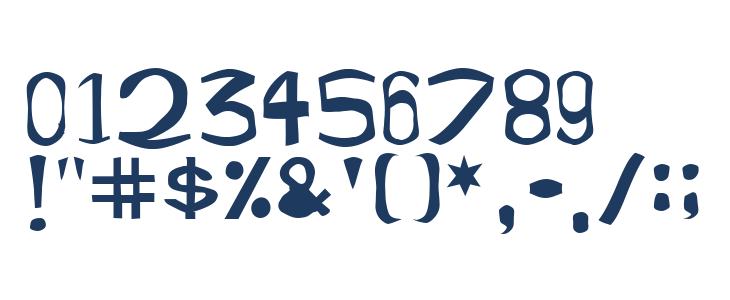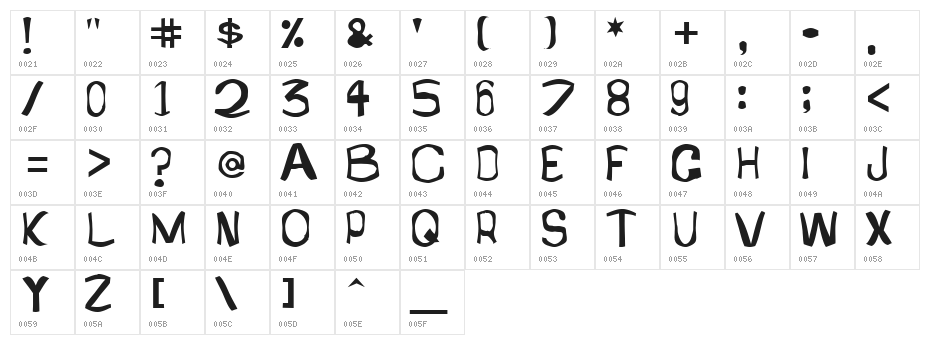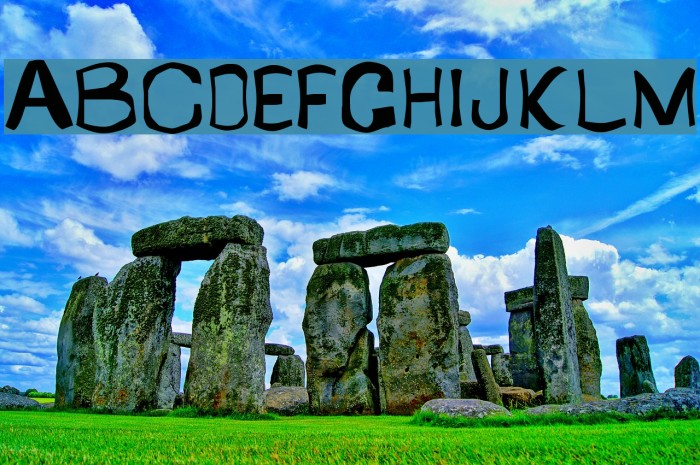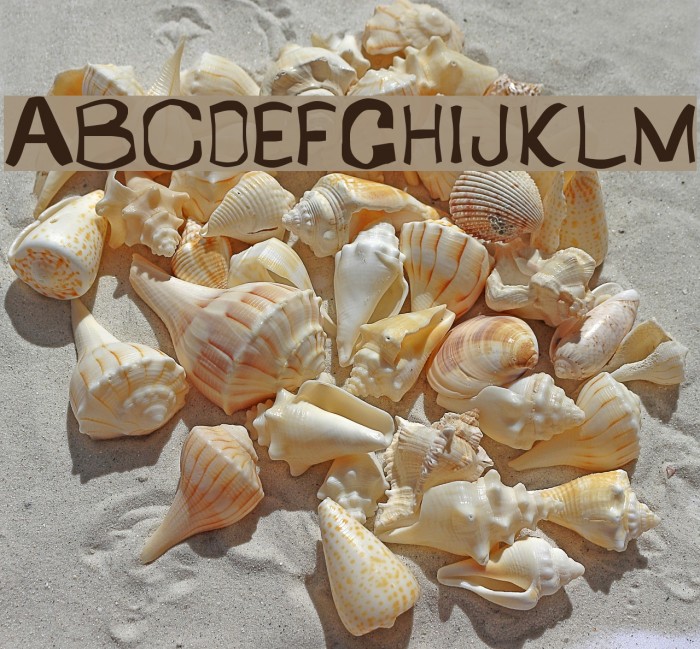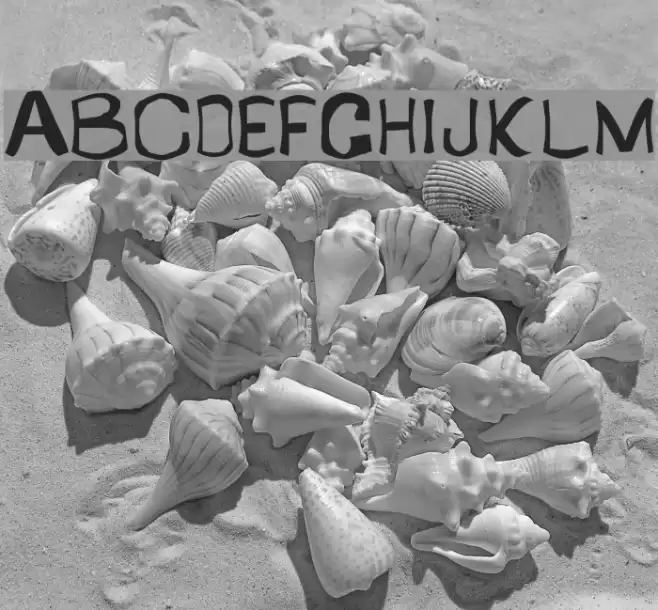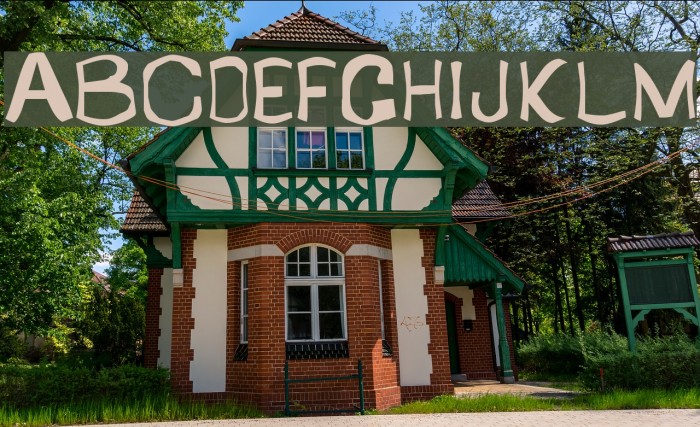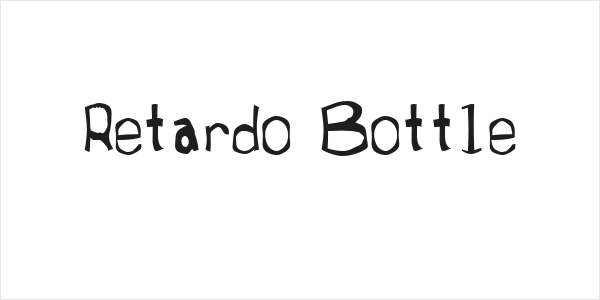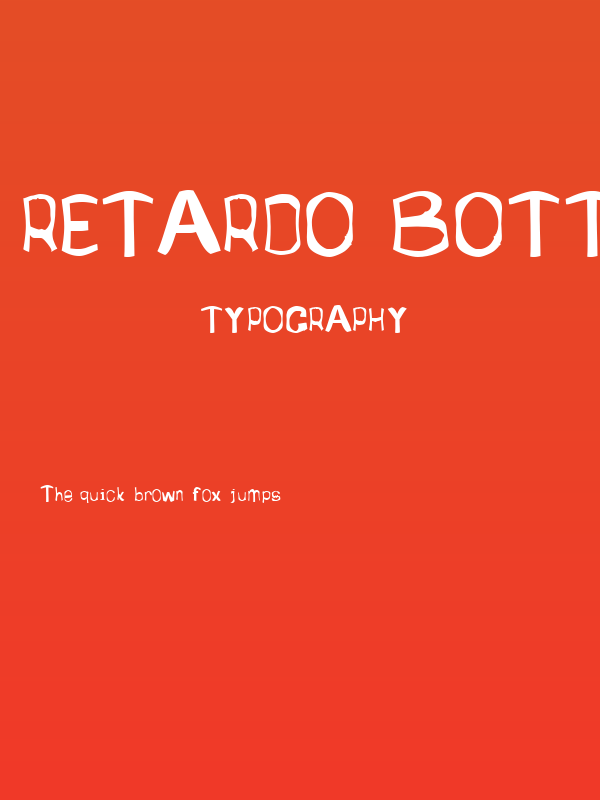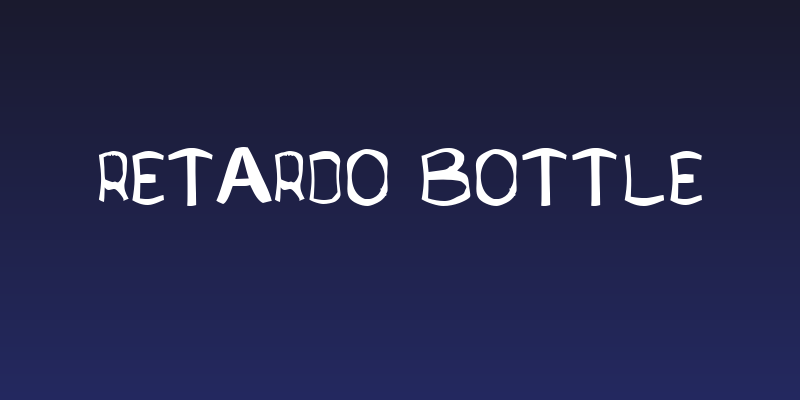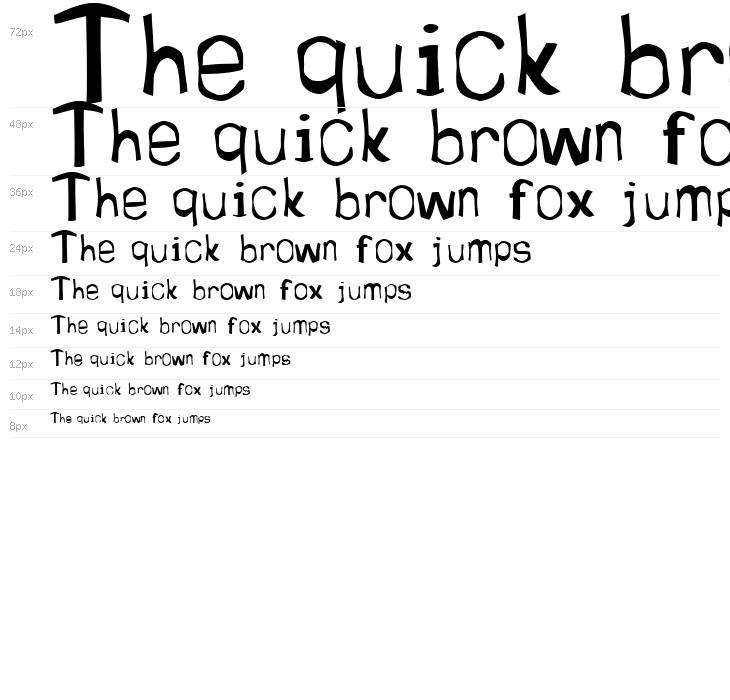
This font features a playful and quirky design, with each character exhibiting a unique and irregular shape. The letters have a hand-drawn appearance, giving them a whimsical and informal feel. The uppercase and lowercase letters maintain a consistent style, with varying stroke widths that add to the font's dynamic and lively character. The numerals and special characters follow the same playful theme, making the font suitable for creative and fun projects. The overall design is bold and eye-catching, perfect for making a statement.
| Use Case | Headlines, Posters, Creative Branding |
| Proposed Projects | Ideal for children's books, comic strips, playful branding, and creative posters. |